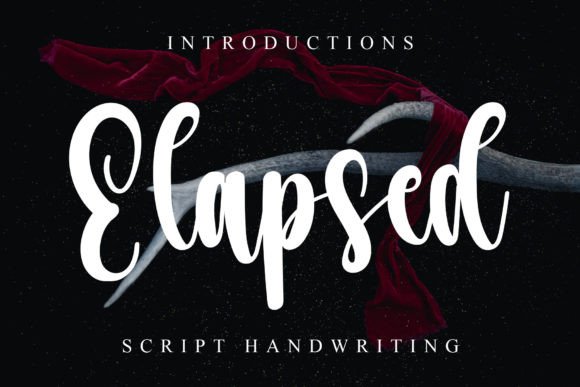
Unleash the Timeless Allure of Elapsed: Your Gateway to Exquisite Designs
In a world demanding authenticity, Elapsed emerges as a script font masterpiece, designed to capture the essence of elegance and grace. Its delicate strokes and flowing lines evoke a sense of artistry that will leave your audience spellbound.
Crafted by the talented hands at Bintang Studio, Elapsed embodies the essence of distinction and timelessness. Its intricate details and swashes add an air of sophistication to your designs, making them stand out from the ordinary.
With Elapsed, you can:
- Craft mesmerizing logos that radiate individuality and leave a lasting impression.
- Elevate your branding materials with a touch of sophistication that speaks volumes about your attention to detail.
- Design eye-catching invitations and greeting cards that will make any occasion truly unforgettable.
- Add a personal touch to your social media posts and digital content that resonates with your audience.
- Create stunning website designs that exude class and professionalism.
Beyond its aesthetic appeal, Elapsed is incredibly user-friendly. Its PUA encoding ensures effortless access to the entire glyph and swash collection, making it a breeze to incorporate into your designs. Unleash your creativity and watch as Elapsed transforms your projects into works of art.
So, whether you're a seasoned designer or just starting, Elapsed is the perfect font to elevate your designs and leave a lasting impression. Its versatility knows no bounds, making it suitable for a wide range of projects, from logos and branding to invitations and digital content.